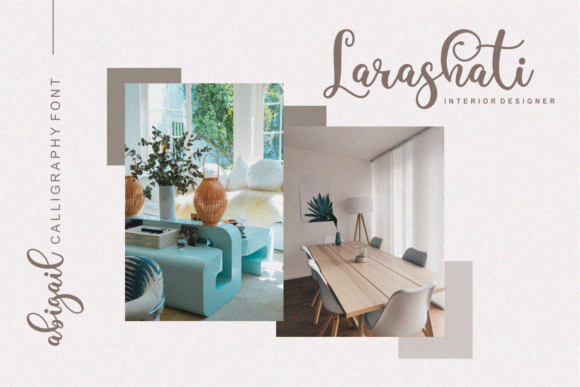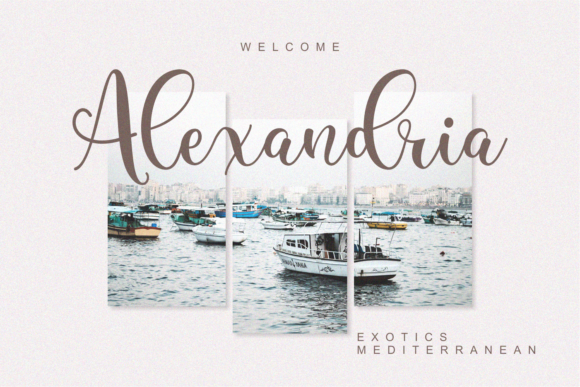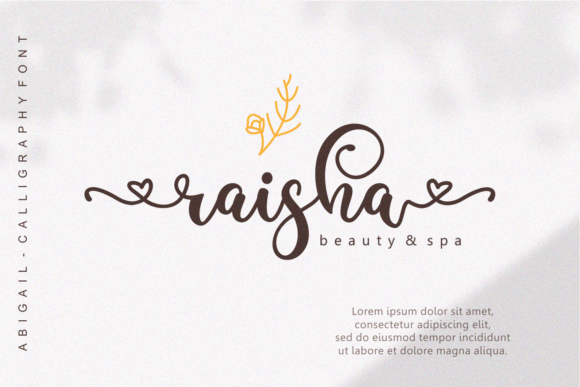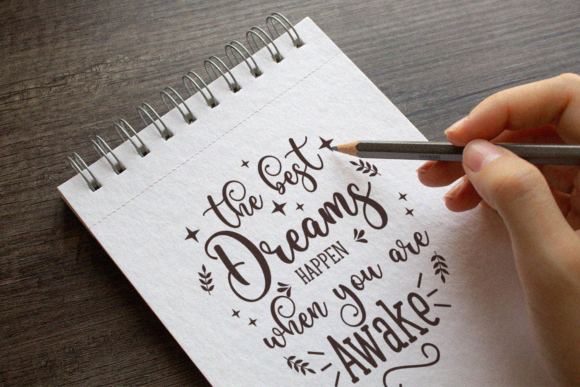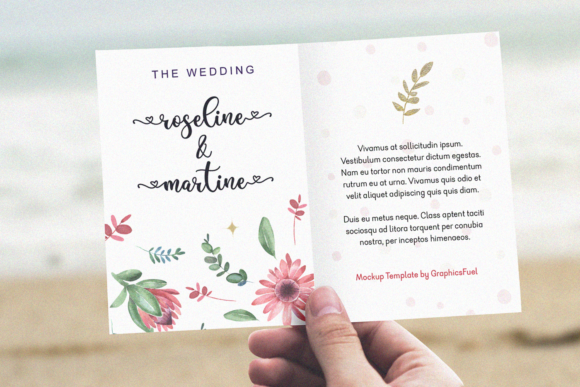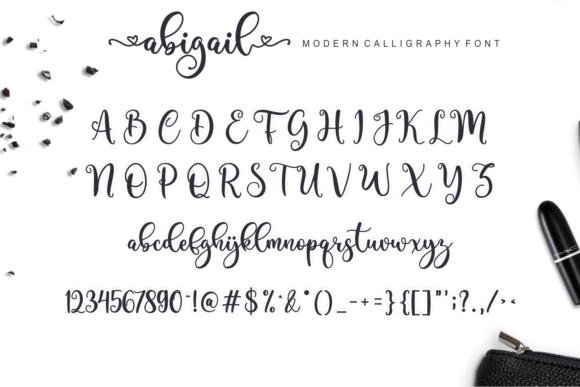
Introducing Abigail Font: Elevate Your Designs with Delicate Elegance
In the world of typography, few fonts capture the essence of elegance and sophistication as beautifully as the Abigail Font. This delicate and elegant handwritten font is a versatile choice for designers and crafters looking to add a personalized touch to their projects. Whether you’re working on wedding invitations, thank you cards, logos, or greeting cards, Abigail Font is sure to make your designs stand out.
The Beauty of Abigail Font
Abigail Font boasts a unique, handwritten style that exudes warmth and charm. Its delicate strokes and elegant curves make it perfect for designs that require a touch of sophistication. The font’s classic look is versatile enough to complement a variety of design themes, from vintage and rustic to modern and minimalist.
Perfect for Personalized Designs
One of the key advantages of Abigail Font is its suitability for personalized designs. Whether you’re creating custom wedding invitations, designing thank you cards for special occasions, or crafting unique logos for businesses, this font adds a touch of elegance and sophistication. Its ability to convey warmth and friendliness makes it an excellent choice for greeting cards and other personal correspondence.
Abigail Font comes with PUA (Private Use Area) encoding, making it incredibly easy to access all the glyphs and swashes. PUA encoding allows designers to access additional characters and alternate glyphs that are not available in standard font sets. This feature is particularly useful for creating unique and customized designs, as it provides a wide range of options for adding personal touches and flourishes.
Applications of Abigail Font
The versatility of Abigail Font makes it suitable for a wide range of applications. Here are some of the most popular uses:
- Wedding Invitations: Create beautiful, custom wedding invitations that set the tone for your special day.
- Thank You Cards: Add a personal touch to your thank you cards and make them truly special.
- Weddings: Use Abigail Font in wedding stationery, including save-the-date cards, programs, and place cards.
- Greeting Cards: Create unique and heartfelt greeting cards for birthdays, holidays, and other special occasions.
- Logos: Use Abigail Font to create elegant and sophisticated logos for businesses, particularly those in the wedding, fashion, and lifestyle industries.
Tips for Using Abigail Font
To make the most of Abigail Font, consider the following tips:
- Pair with Complementary Fonts: Combine Abigail Font with other fonts that complement its elegant style. Serif fonts, such as Georgia or Times New Roman, work well for body text, while sans-serif fonts, like Helvetica or Arial, can be used for headings.
- Experiment with Colors: Abigail Font looks stunning in a variety of colors. Experiment with different shades and combinations to find the perfect match for your design.
- Add Swashes and Flourishes: Take advantage of the PUA encoding to add swashes and flourishes to your text. These decorative elements can enhance the overall look of your design and add a personal touch.
Abigail Font is a beautiful, elegant handwritten font that can elevate your designs to new heights. Its delicate strokes, elegant curves, and PUA encoding make it a versatile choice for a wide range of applications. Whether you’re a designer or crafter, Abigail Font is sure to become a valuable addition to your font collection. So why wait? Download Abigail Font today and start creating stunning, personalized designs that leave a lasting impression.